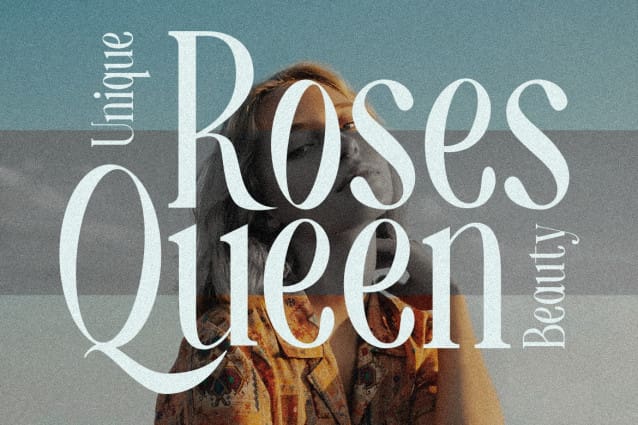
Moelina Font
Moelina Font is a bold and assertive serif font. No matter the topic, this font will be an incredible asset to your fonts’ library, as it has the potential to elevate any creation.